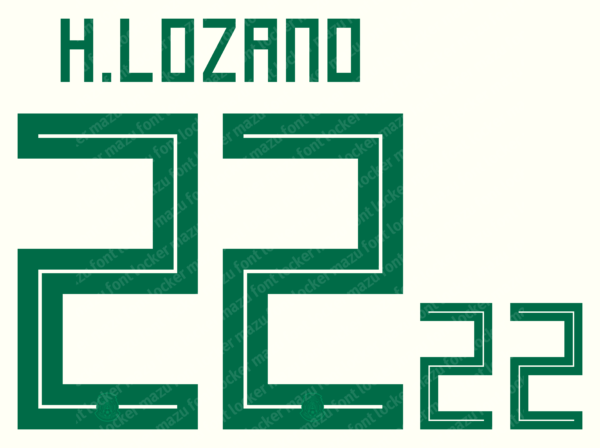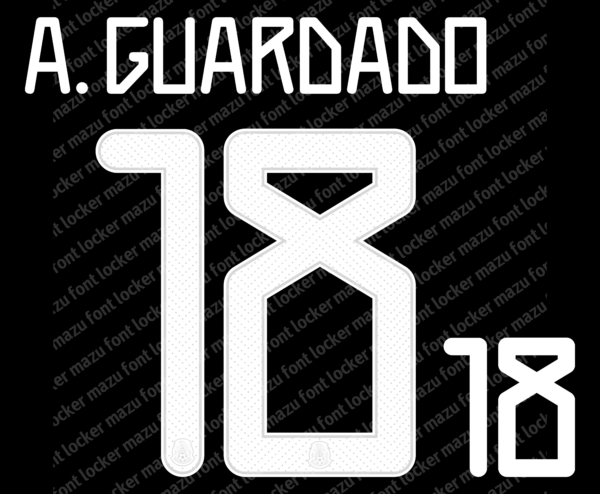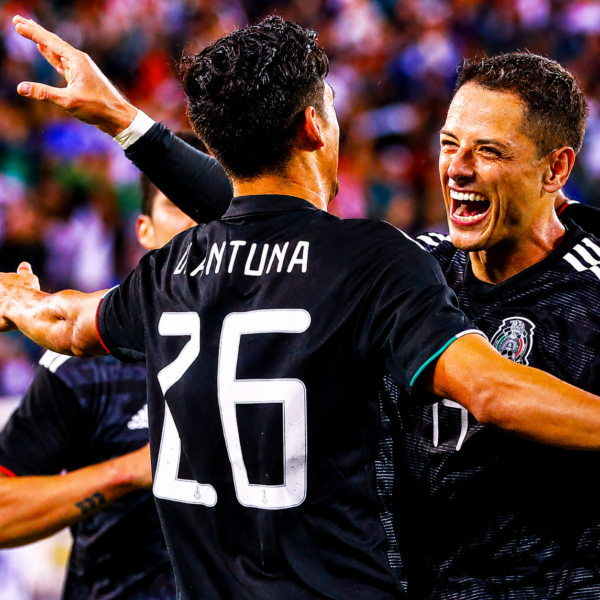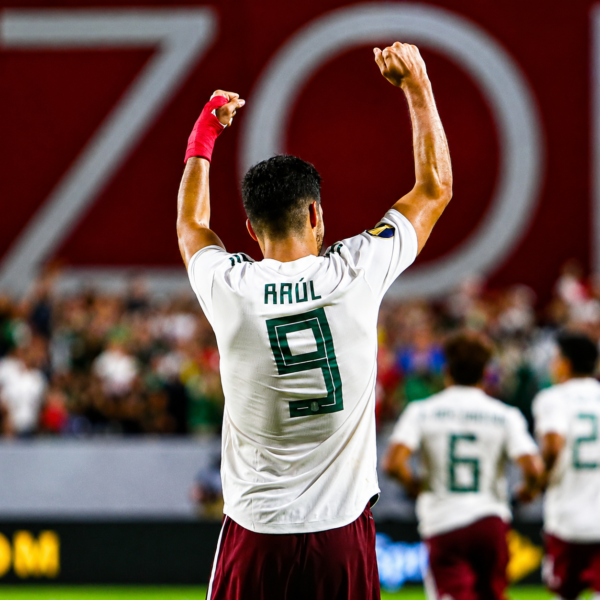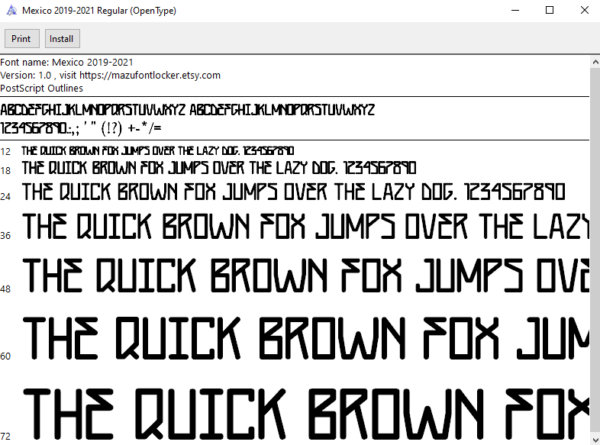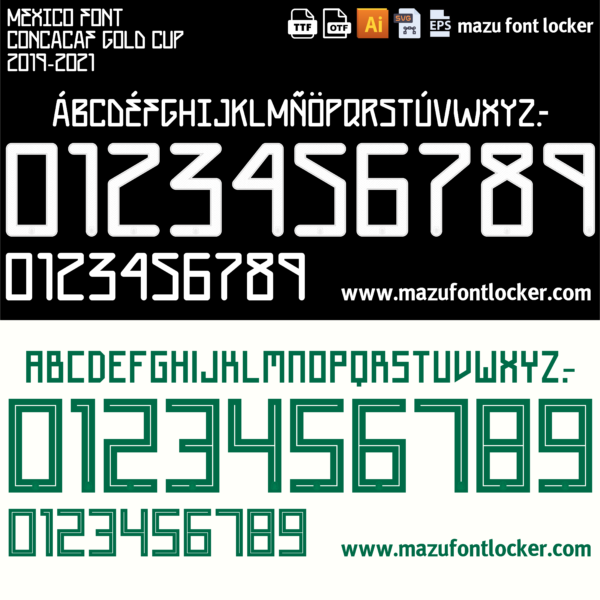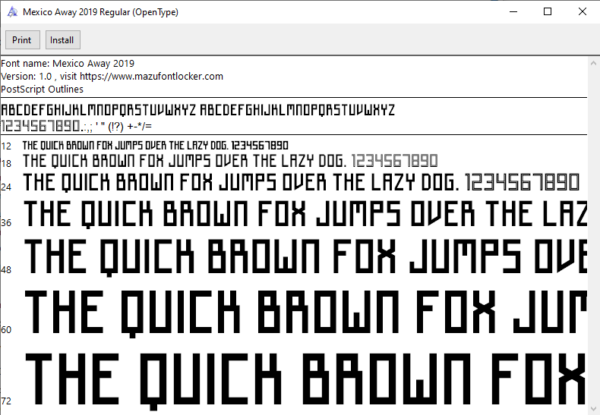
Mexico 2019 Font Vector – Legendary El Tri Masterpiece
Download Mexico 2019 Font now and unleash the fiery passion of El Tri straight into your designs. This premium vector font perfectly captures the bold, vibrant, and electrifying identity of Mexico during their unforgettable 2019 campaign. Every letter and number is crafted with razor-sharp precision, dynamic contours, and powerful details that reflect the team’s relentless energy, attacking flair, and deep Mexican pride.
Whether you’re creating matchday posters, fan merchandise, custom jerseys, social media graphics, t-shirts, or premium digital artwork, this Mexico 2019 Font delivers professional quality with stunning vibrancy and maximum impact. The font masterfully combines modern strength with the authentic green, white, and red identity of Mexico, making every headline roar with true El Tri pride and intensity.
Elevate your projects with authentic El Tri DNA and let your creativity roar like the fans at the Estadio Azteca.
Mexico 2019 Font Vector
The Mexico 2019 Font is a premium, high-precision football jersey font vector meticulously engineered to capture the fearless energy, explosive passion, and electrifying identity of Mexico’s legendary 2019 campaign.
Inspired by the mighty El Tri and their iconic, high-intensity performances throughout the unforgettable 2019 journey, this font unleashes a bold, majestic, and devastatingly powerful presence that radiates unbreakable Mexico pride, rich heritage, and unstoppable fighting spirit. Every letter and number has been painstakingly recreated with razor-sharp precision to embody the vibrant green, white, and red identity, relentless warrior mentality, and glorious legacy that makes Mexico one of the most passionate and feared forces in North and Central American football.
Feel the fire of the Estadio Azteca. Ignite the passion. Unleash the legendary spirit of El Tri and the unstoppable power of Mexico 2019.
🔥 Mexico 2019 Font Features
• Authentic 2019 Mexico jersey lettering style
The authentic lettering style helps recreate the classic look of the Mexico 2019 kit with professional accuracy.
Unlike generic jersey fonts, this set is designed with a strong focus on authenticity and accuracy. Every detail is based on the original match lettering style used during the 2019, helping designers and collectors create realistic football shirt designs.
This Mexico 2019 font vector set is designed for authentic football jersey customization and works perfectly for retro football projects, collector designs, and professional sportswear artwork.